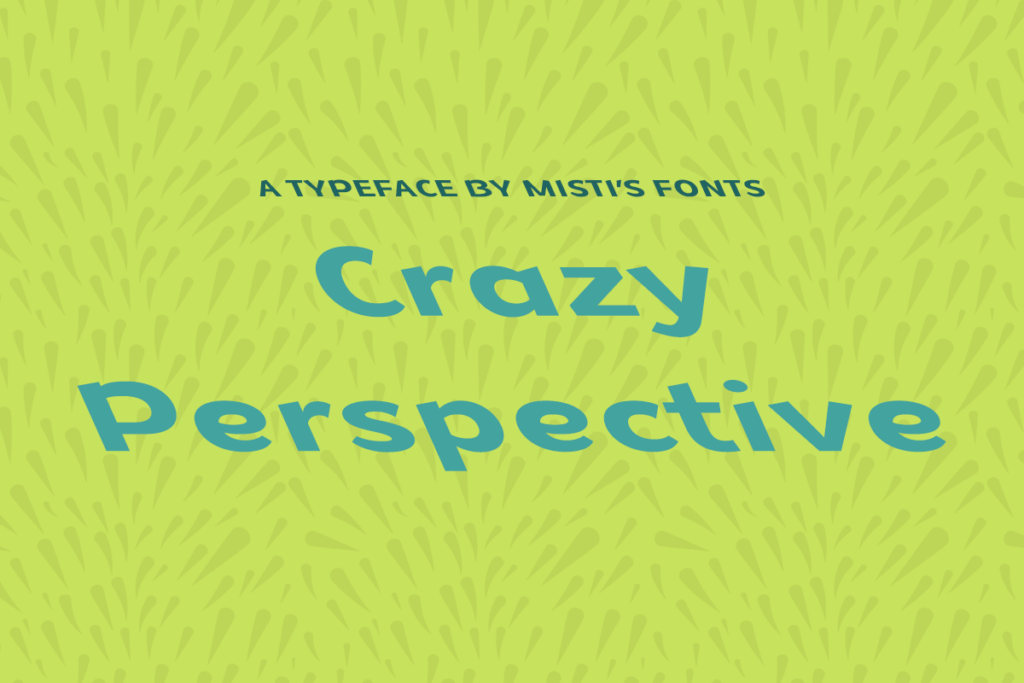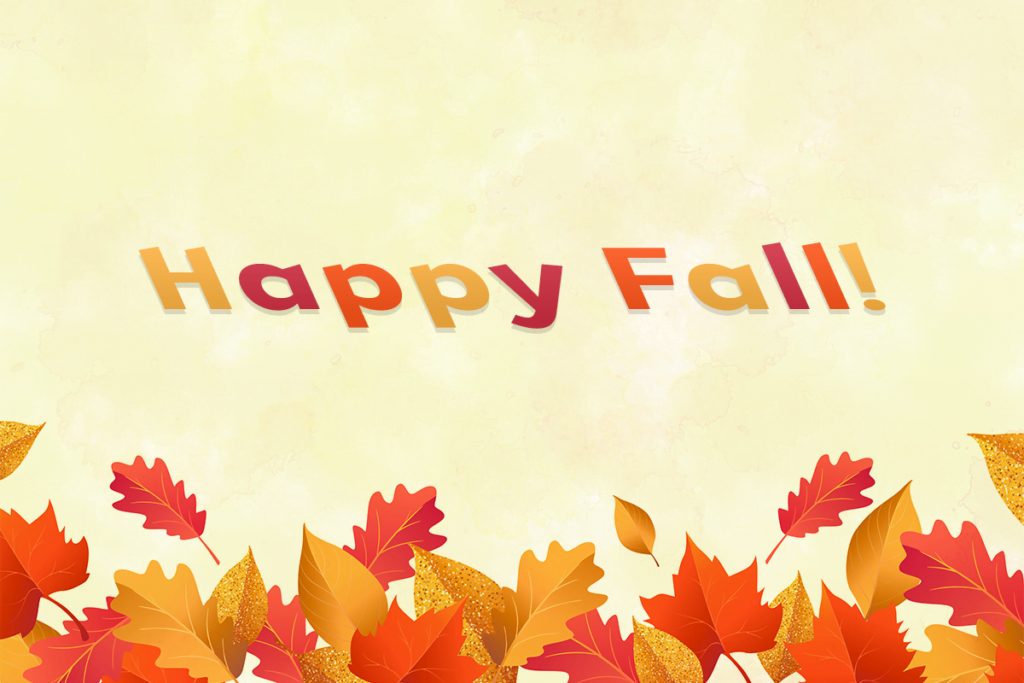
Crazy Perspective
Crazy Perspective is a cool display typeface that will add a unique and fun flair to your designs. Perfect for a variety of projects, including sublimation on shirts, mugs, tote bags and so much more! It is also a great fit for creating funky posters that really stand out from the crowd.